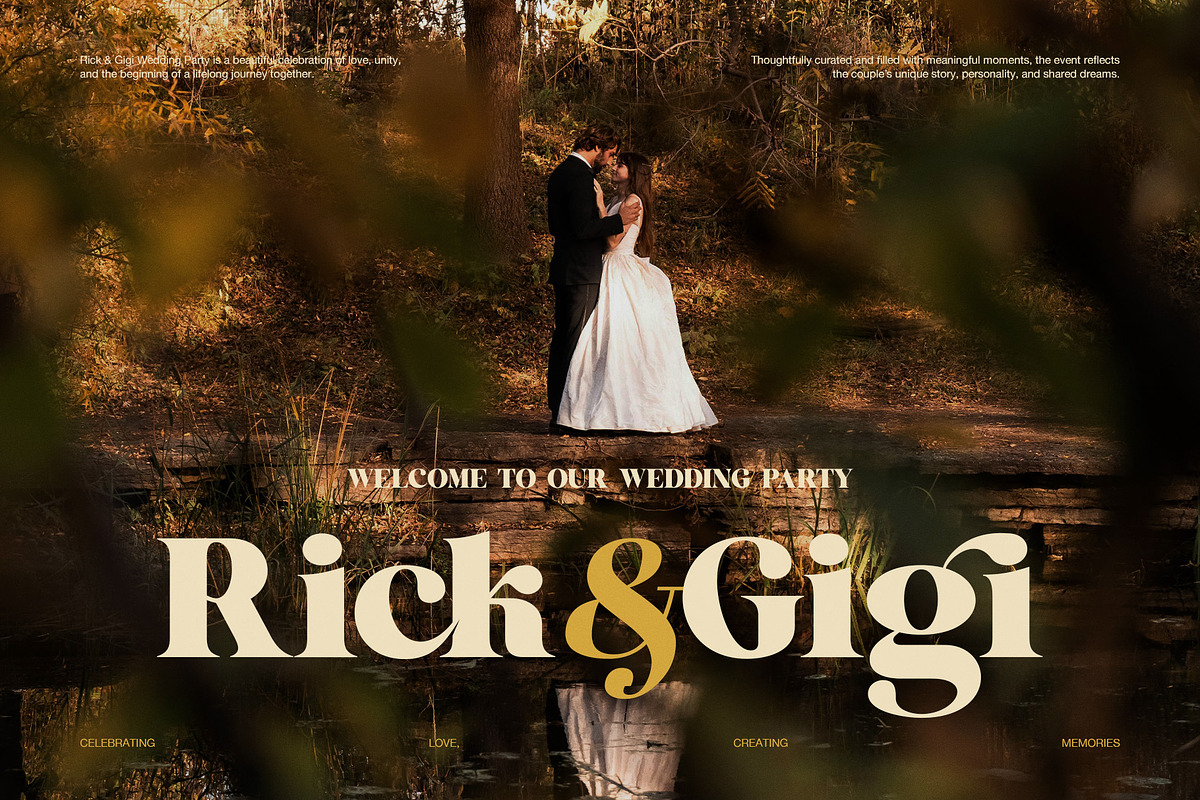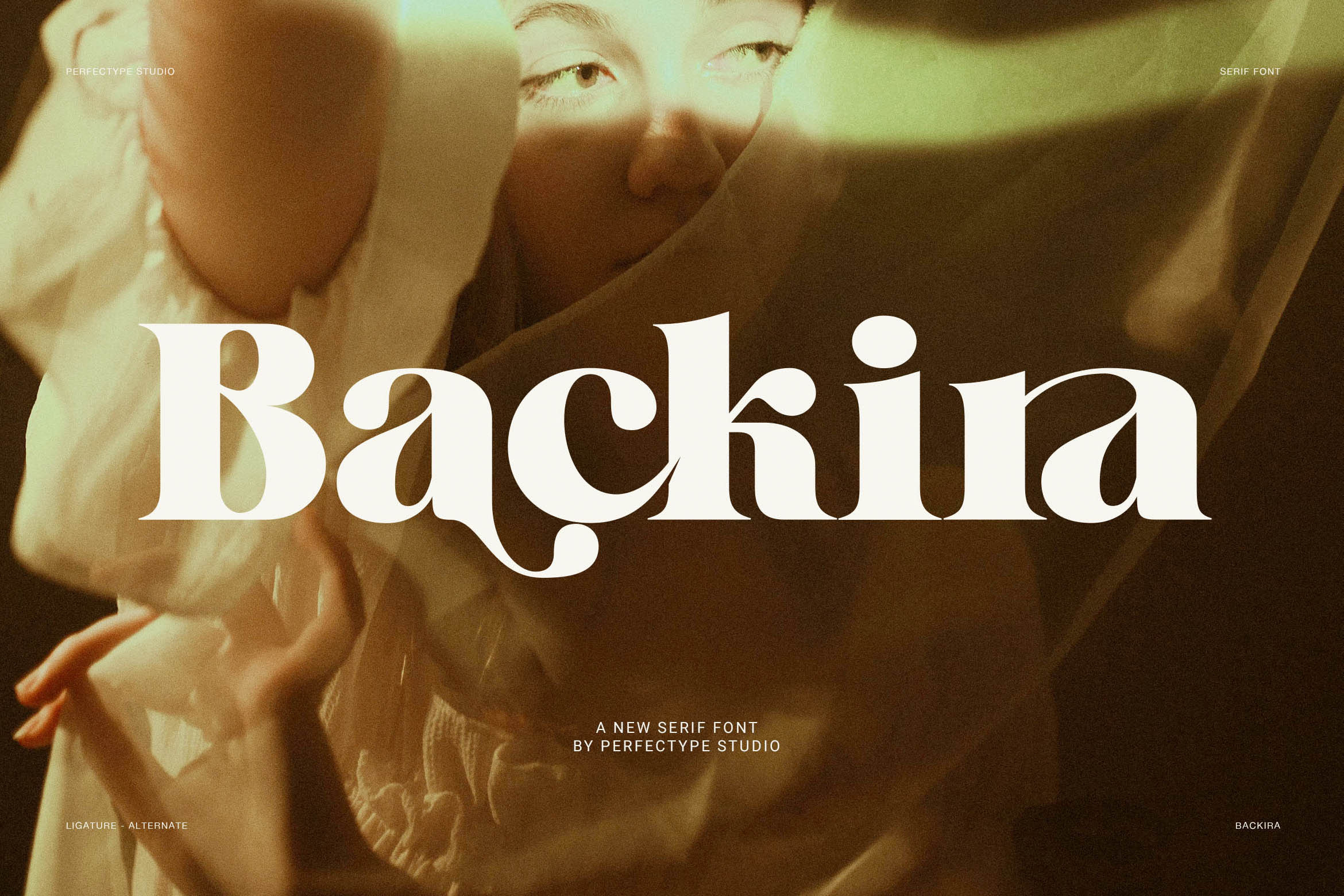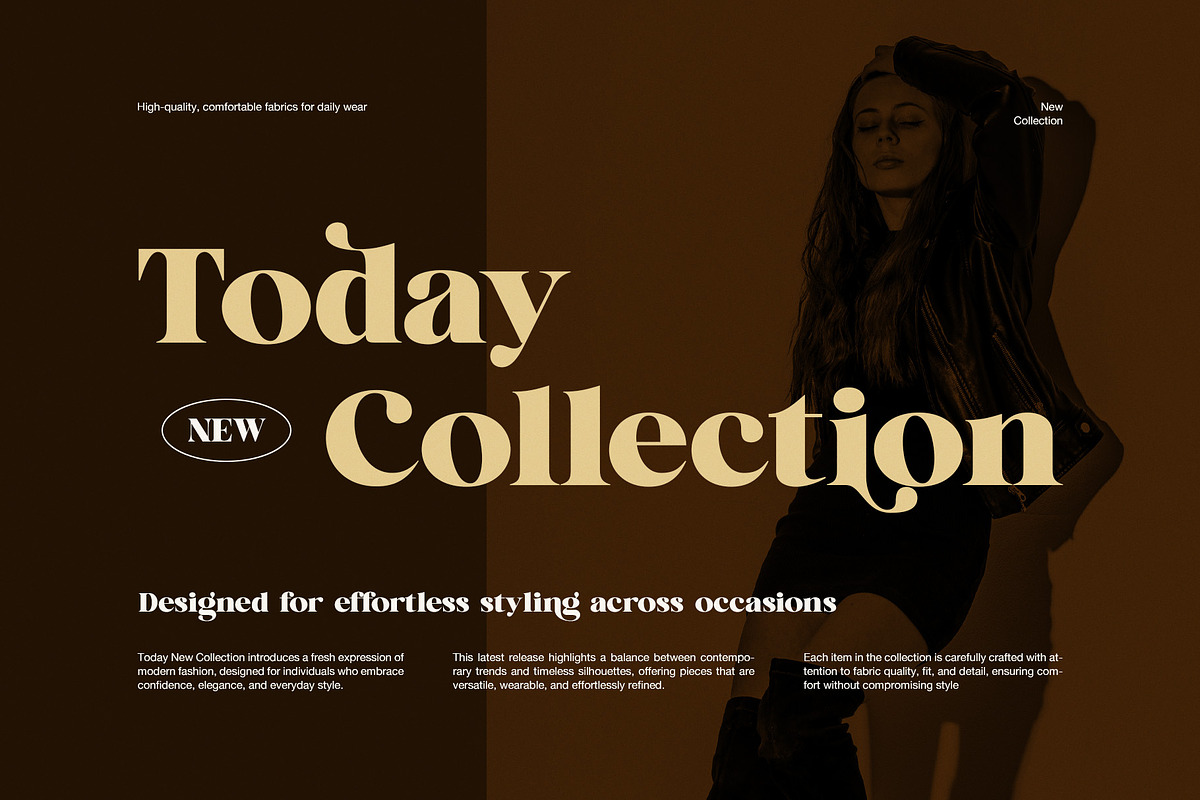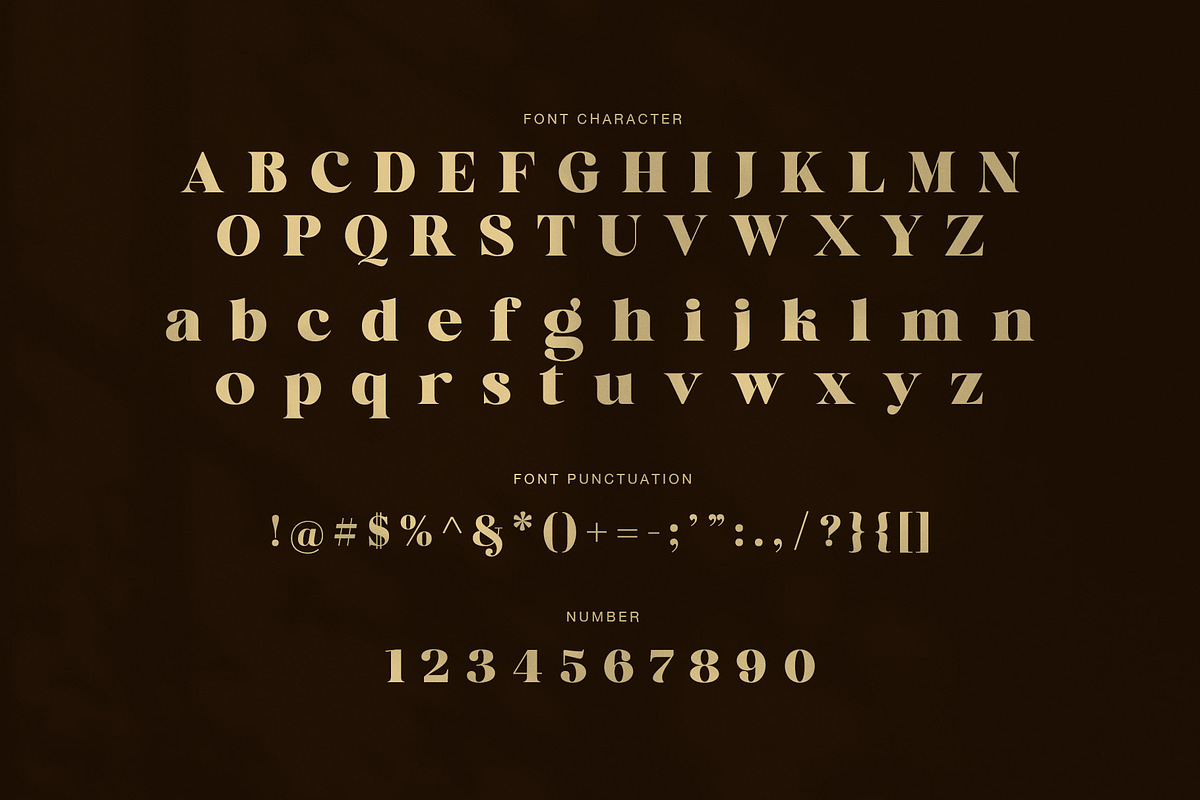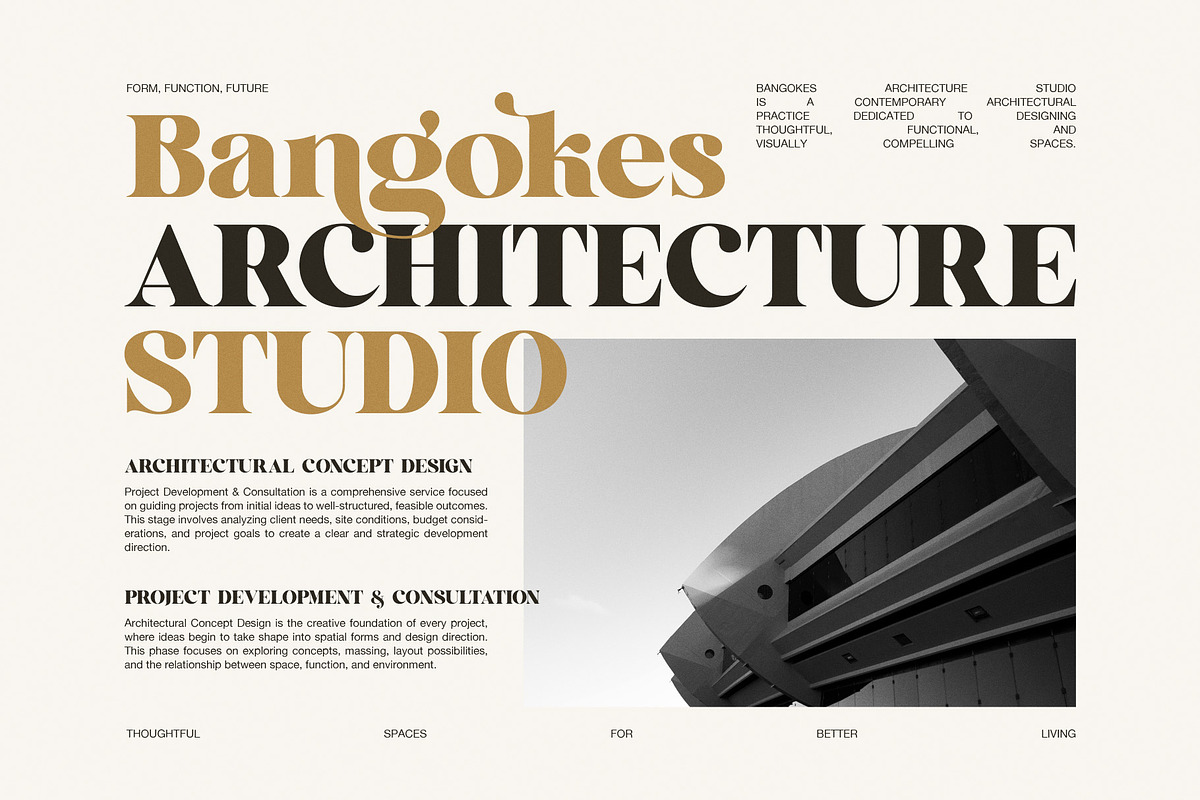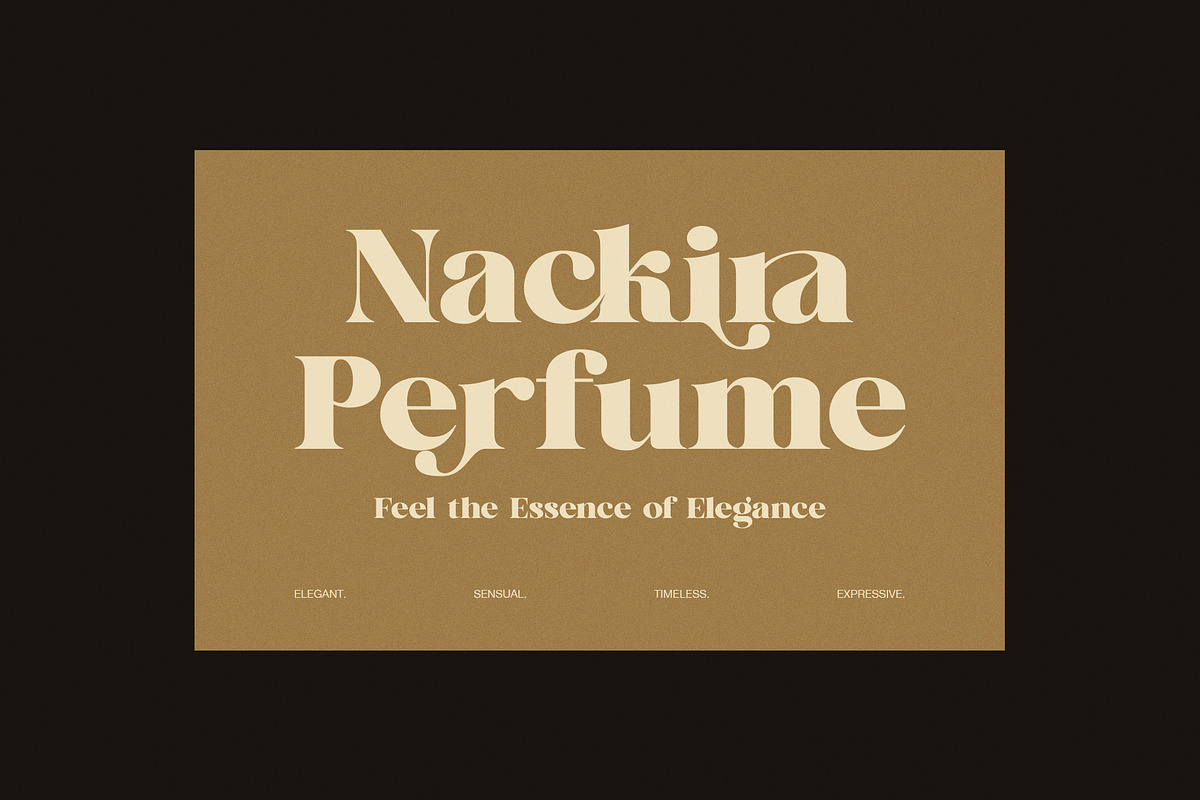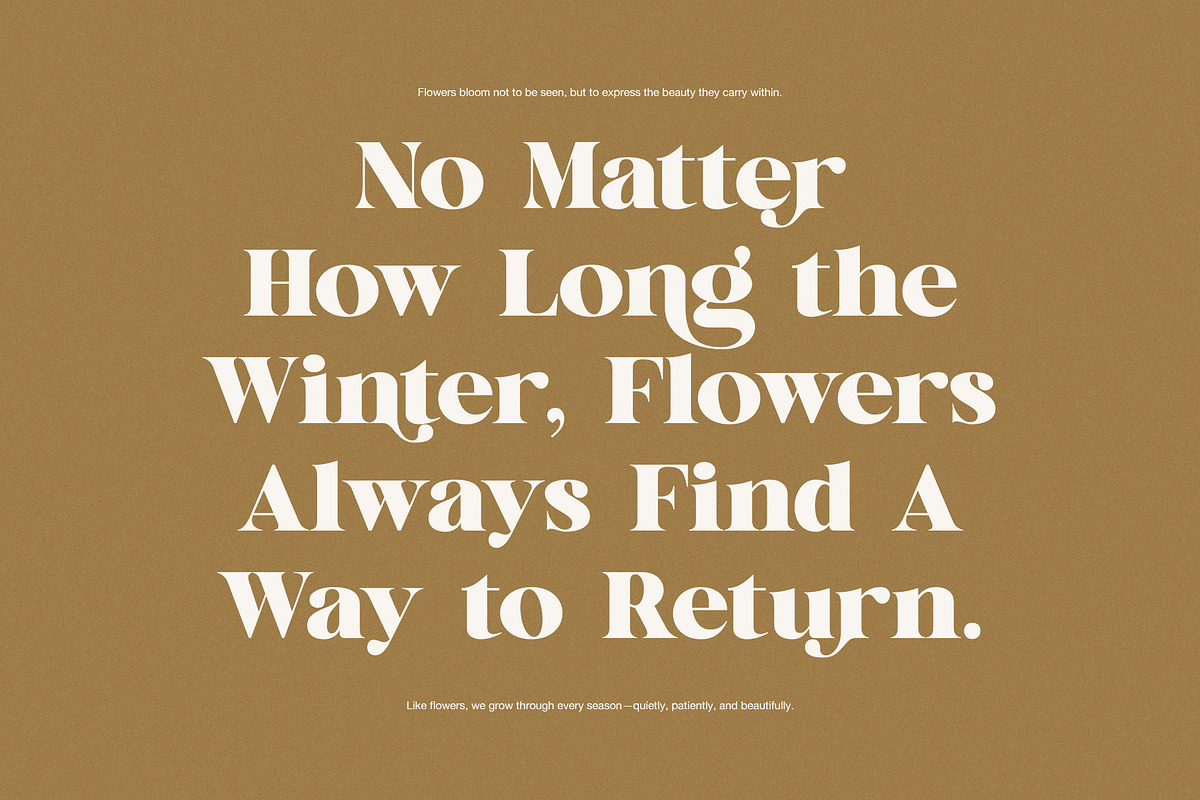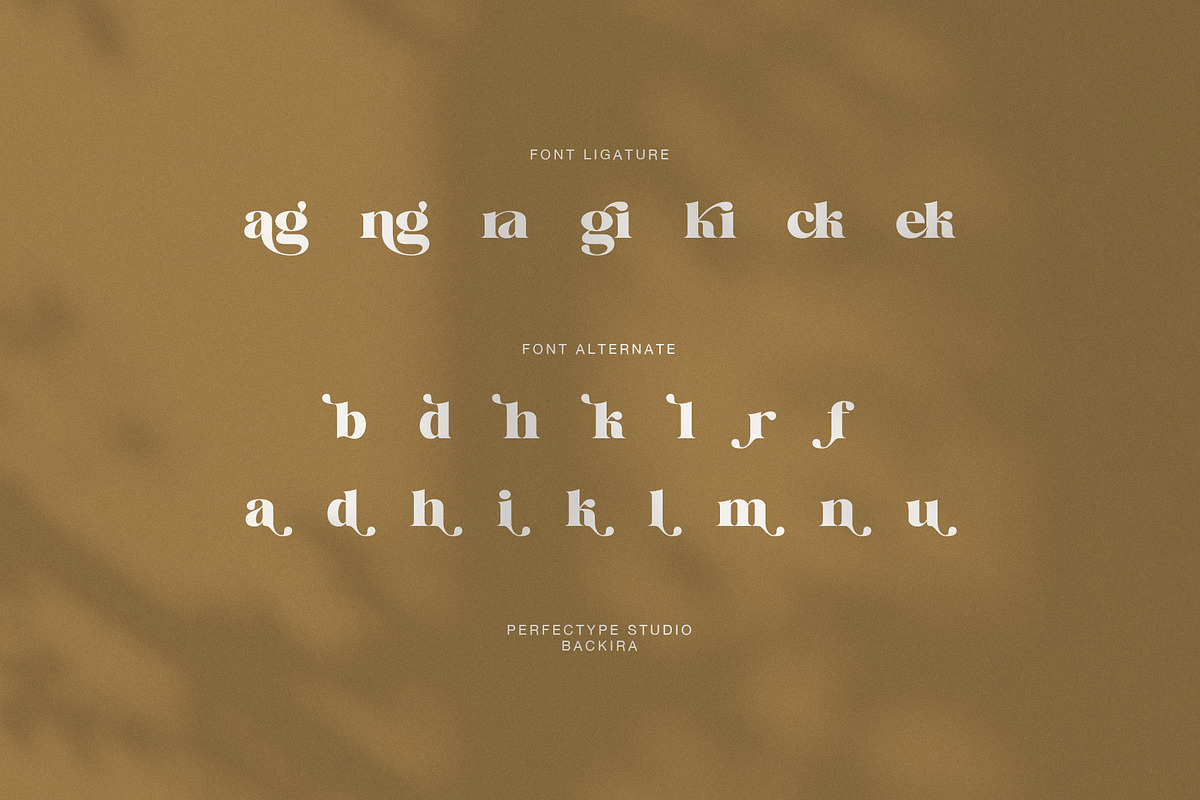
Backira Luxury Serif Font
Backira is a luxury serif font created for elegant brands, stylish layouts, and premium visual design. It has bold contrast, soft curves, and refined serif details that make every word feel graceful. Therefore, this font is a strong choice for designers who want beauty, class, and a clear high-end mood.
Elegant Serif Style
The letter shapes in Backira feel smooth and expressive. Its thick and thin strokes create a rich display style, while the round curves add warmth and charm. In addition, the unique ligatures give your text a more custom look. Because of this, Backira is perfect for designs that need a special and memorable touch.
Creative Font Features
Backira includes stylish ligatures and alternate letters. These features help you create logo marks, title designs, and brand names that look more refined. Moreover, the font keeps a clean structure, so it still feels easy to use in many design themes.
You can use Backira for:
Luxury logo design
Perfume and beauty branding
Wedding invitations
Fashion campaigns
Boutique packaging
Editorial magazine titles
Architecture studio branding
Restaurant and lifestyle design
Social media templates
Premium advertising layouts
Premium Brand Uses
Backira works beautifully in large display text. It can make simple layouts feel more expensive, especially when paired with warm colors, soft cream tones, deep brown shades, or clean white space. However, it also looks bold and modern in fashion posters and editorial covers.
Modern Display Benefits
Use Backira when you need a luxury serif font with elegance, charm, and strong visual power. Its alternates and ligatures make your design feel less common and more personal. As a result, your project can look polished without needing many extra graphic elements.
Timeless Serif Character
Backira is ideal for designers who want a serif font that feels romantic, classy, and modern. It brings a premium look to branding, packaging, logos, and editorial projects. Therefore, this font is a beautiful choice for high-end design with a soft artistic soul.